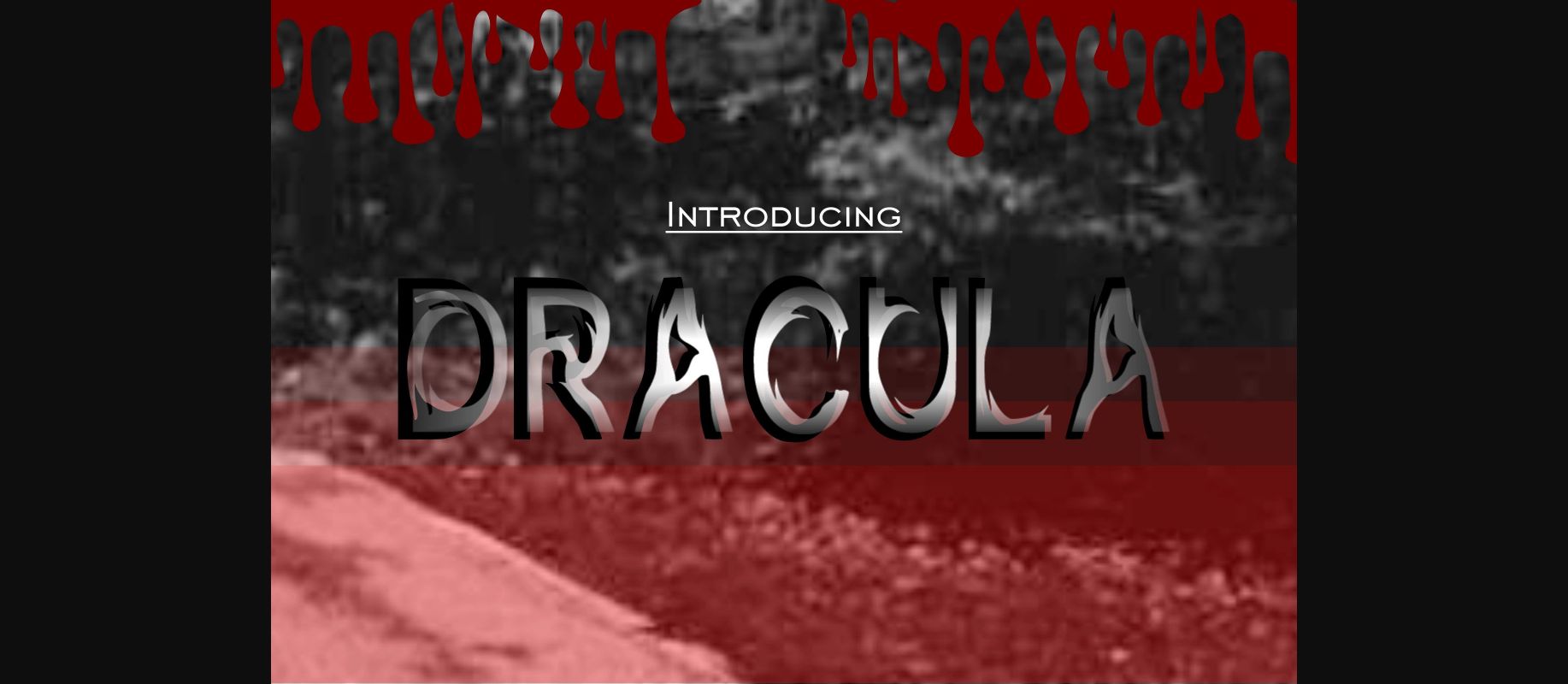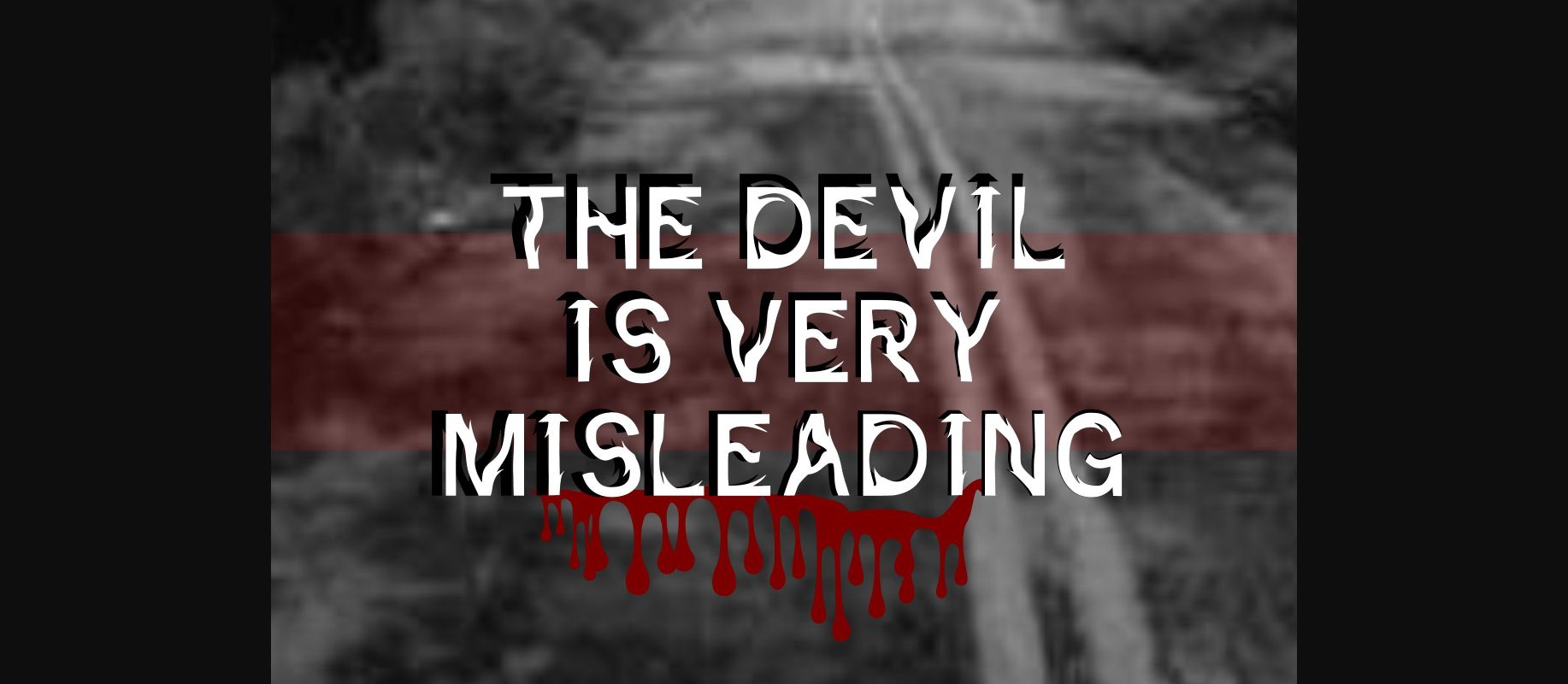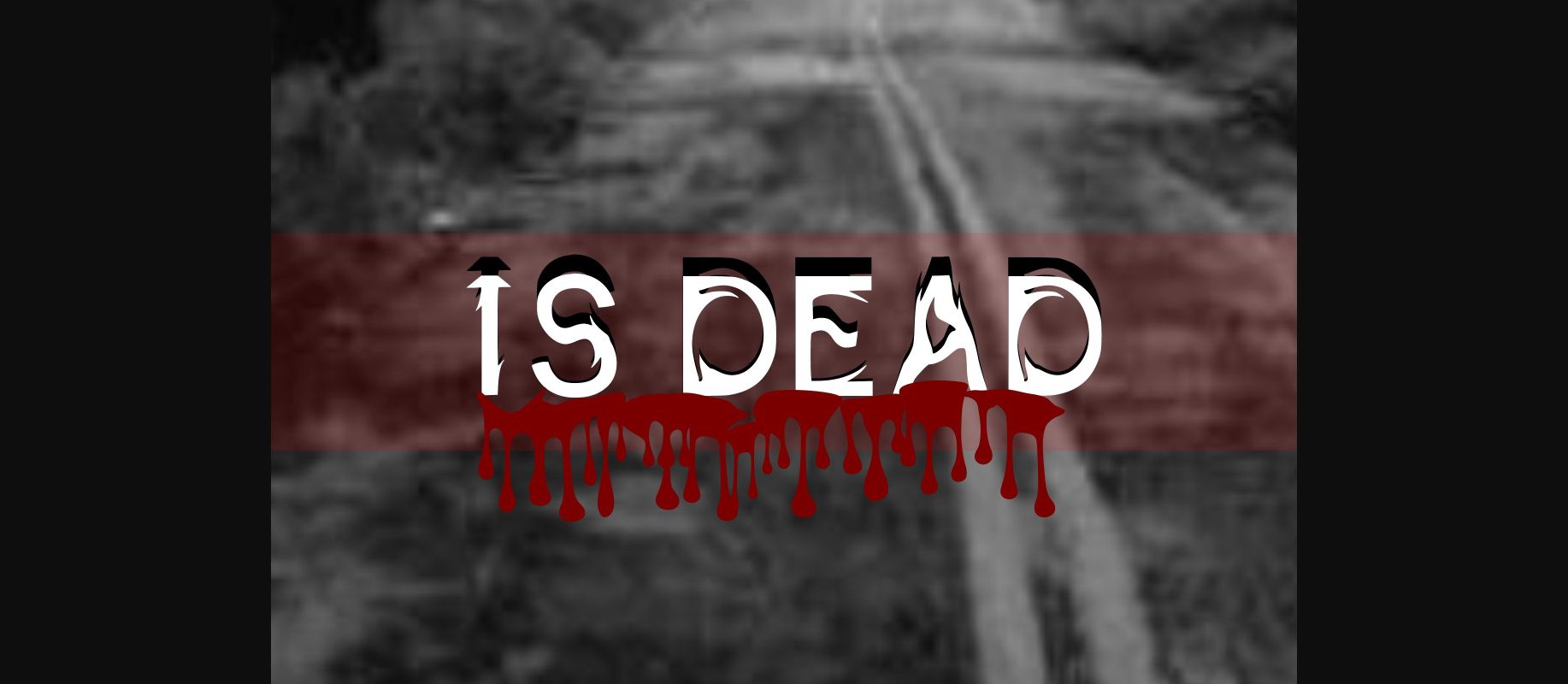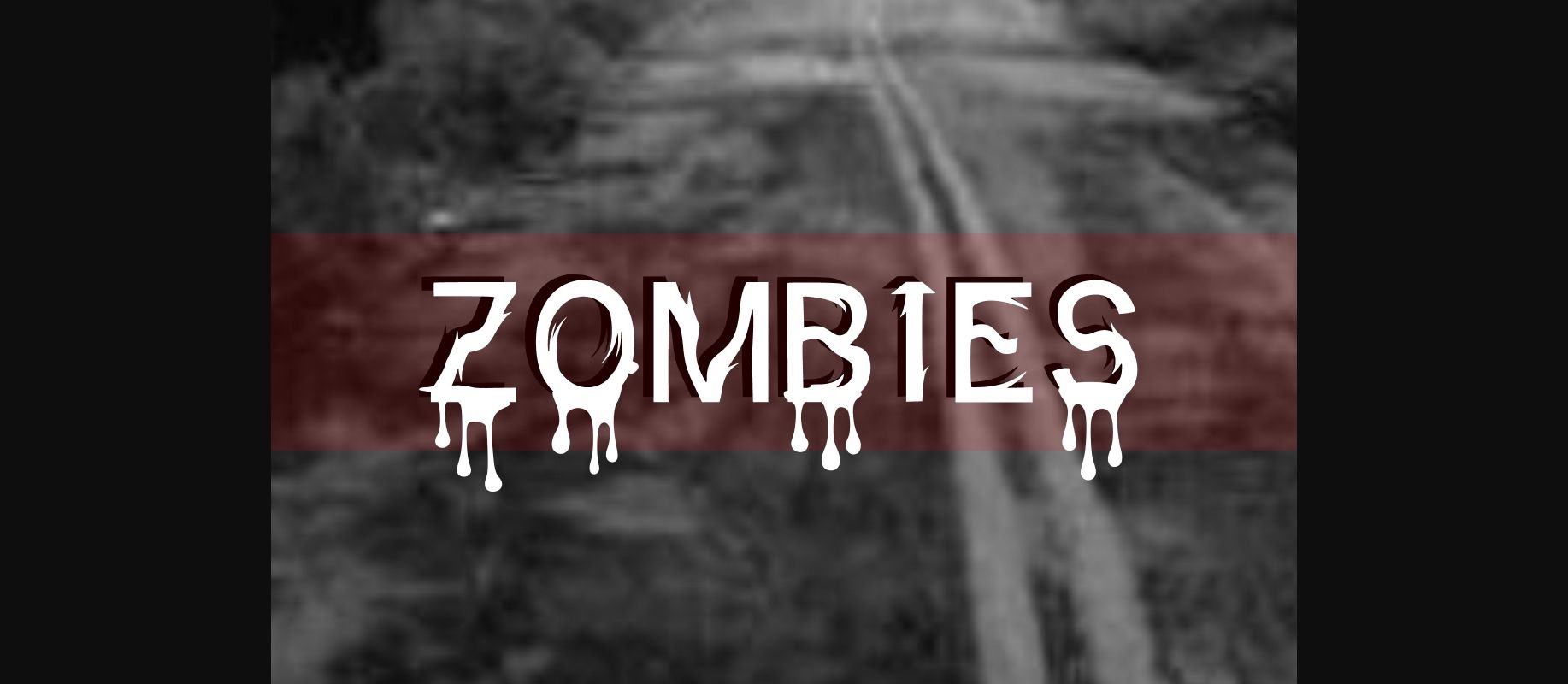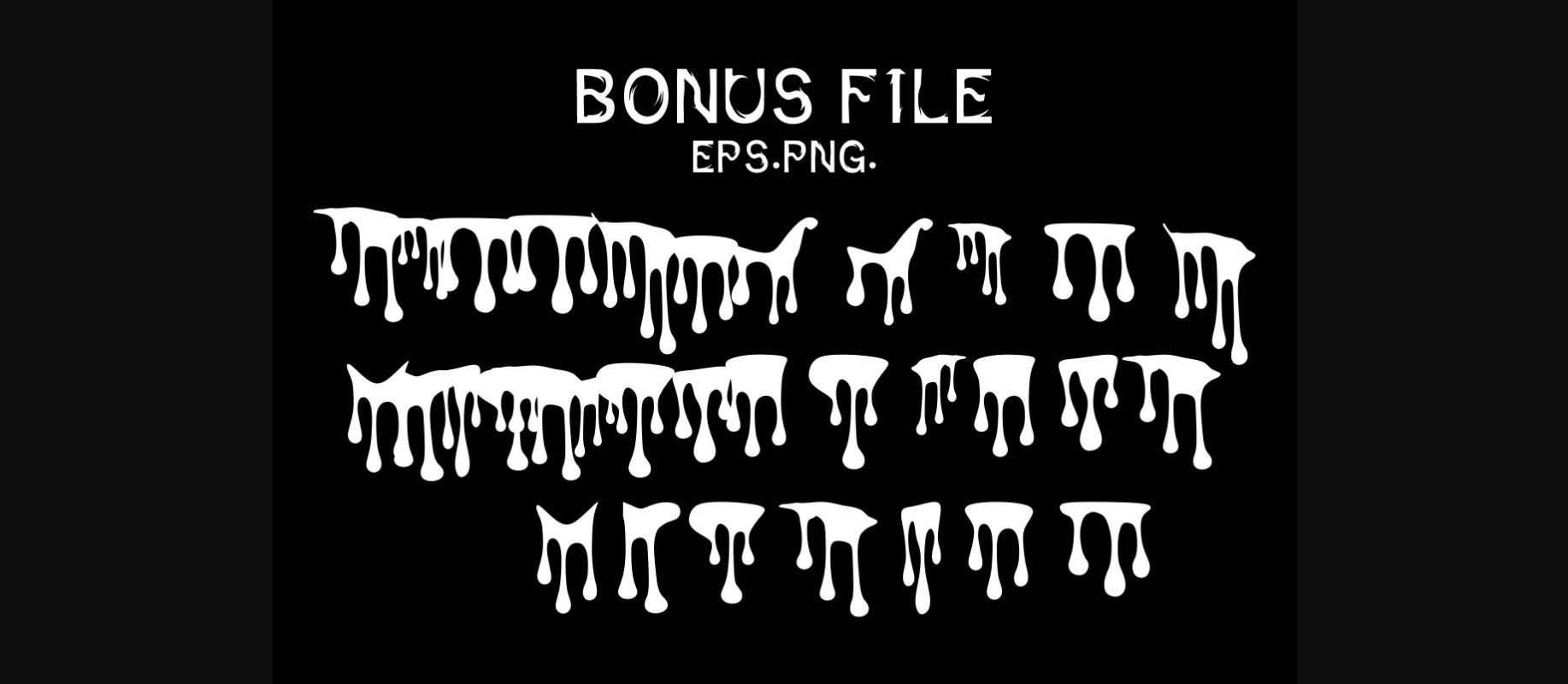
Dracula Font
About Dracula Font
Dracula is a font with a sharp style and makes a strong impression in the wizarding world. This type of font is able to bring a more mysterious feel to your design!